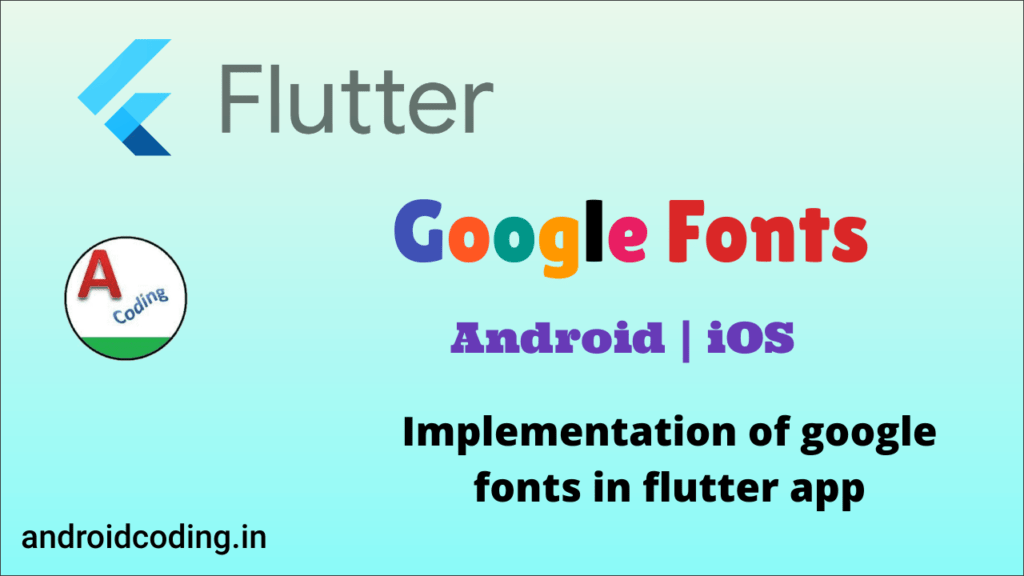
Awesome Google Fonts Flutter 2023
Awesome Google Fonts Flutter 2023. Flutter works with custom fonts and you can apply a custom font across. Poppins is one of the new comers to this long tradition.
If you need to change a. Web when i am in debug mode, it's just working fine, but after app build, google fonts is not working on the mobile, the app is using the regular font. Poppins is one of the new comers to this long tradition.
Geometric Sans Serif Typefaces Have Been A Popular Design Tool Ever Since These Actors Took To The World’s Stage.
With support for the devanagari and latin writing systems, it is an internationalist take on the genre. Web making the web more beautiful, fast, and open through great typography The first step is to load the package for google fonts.